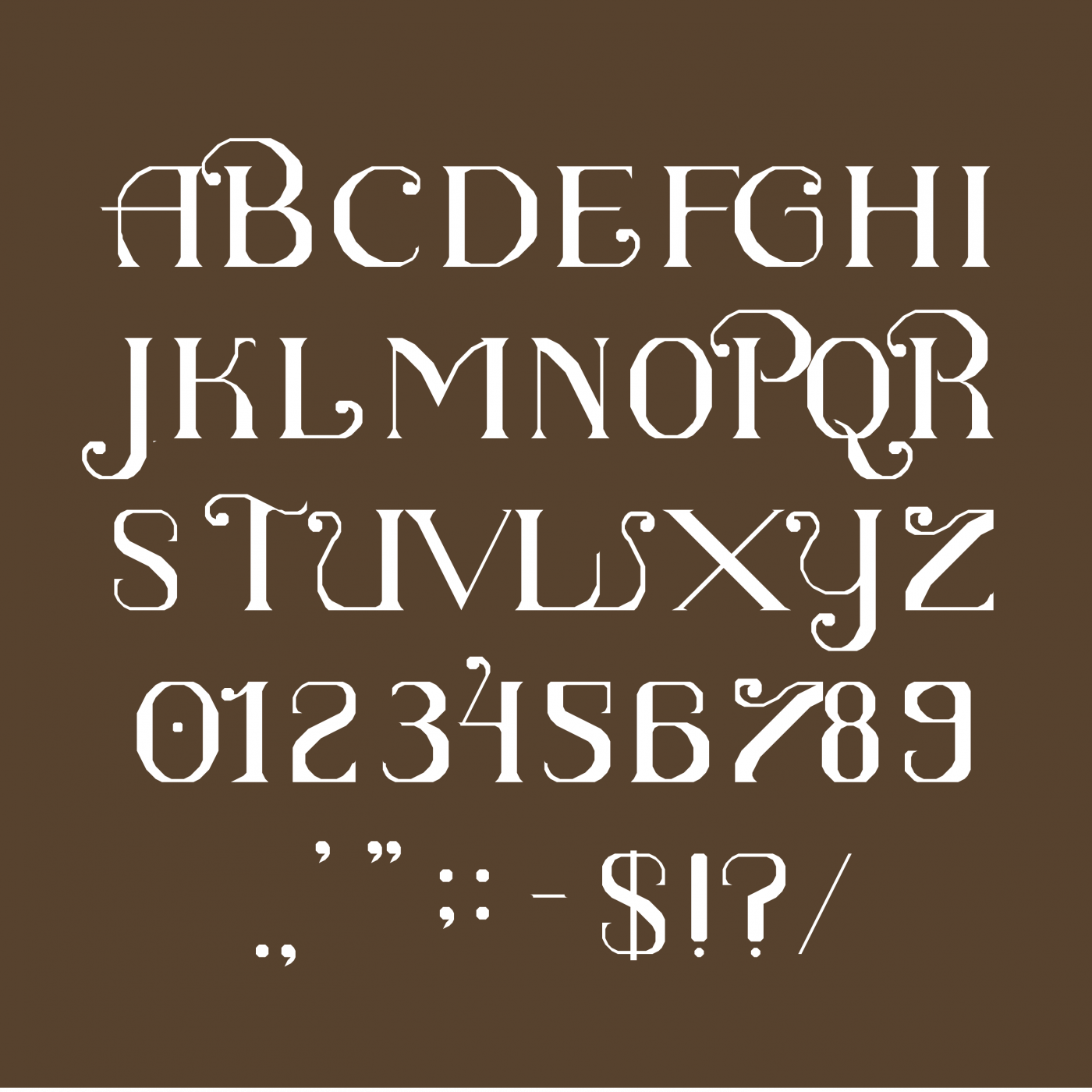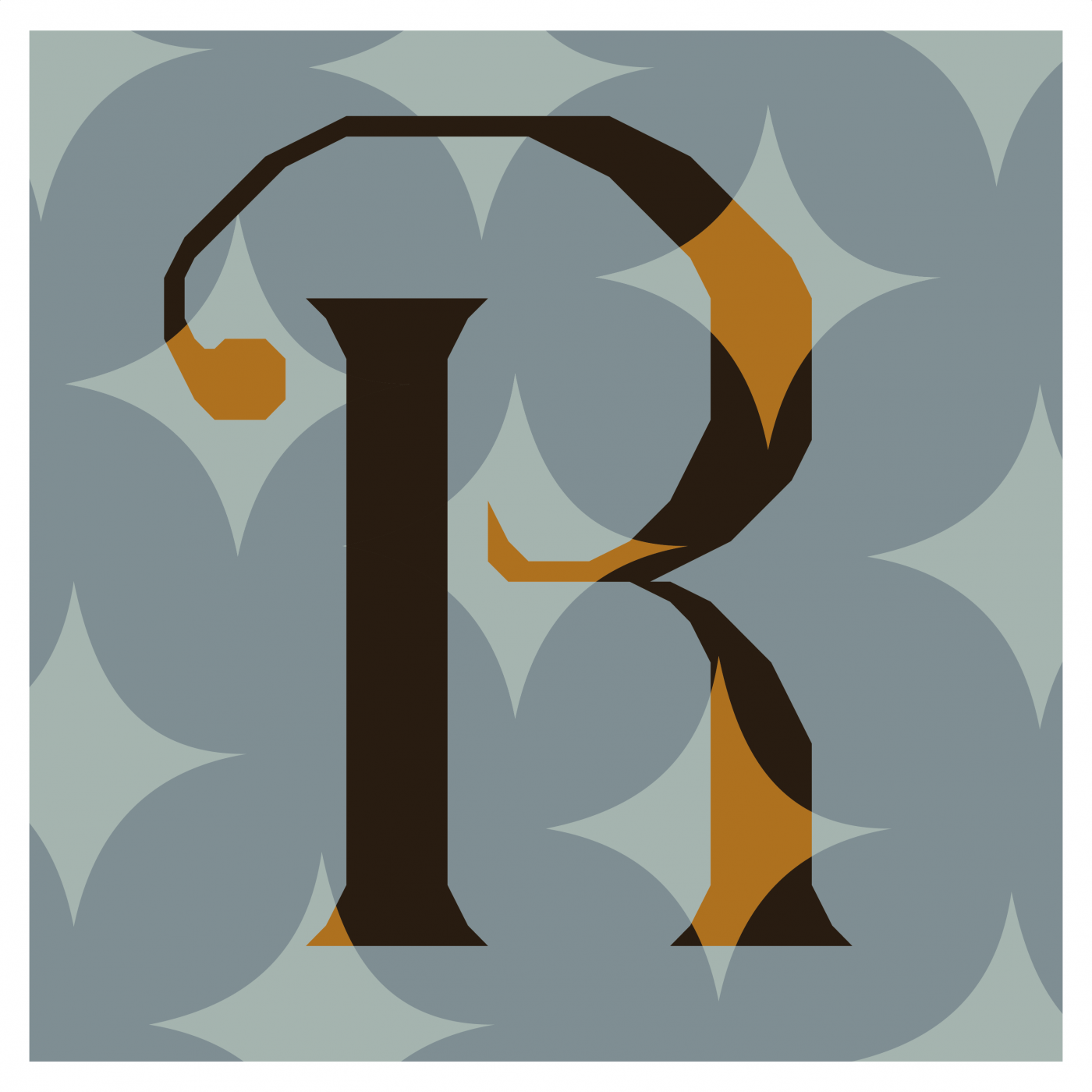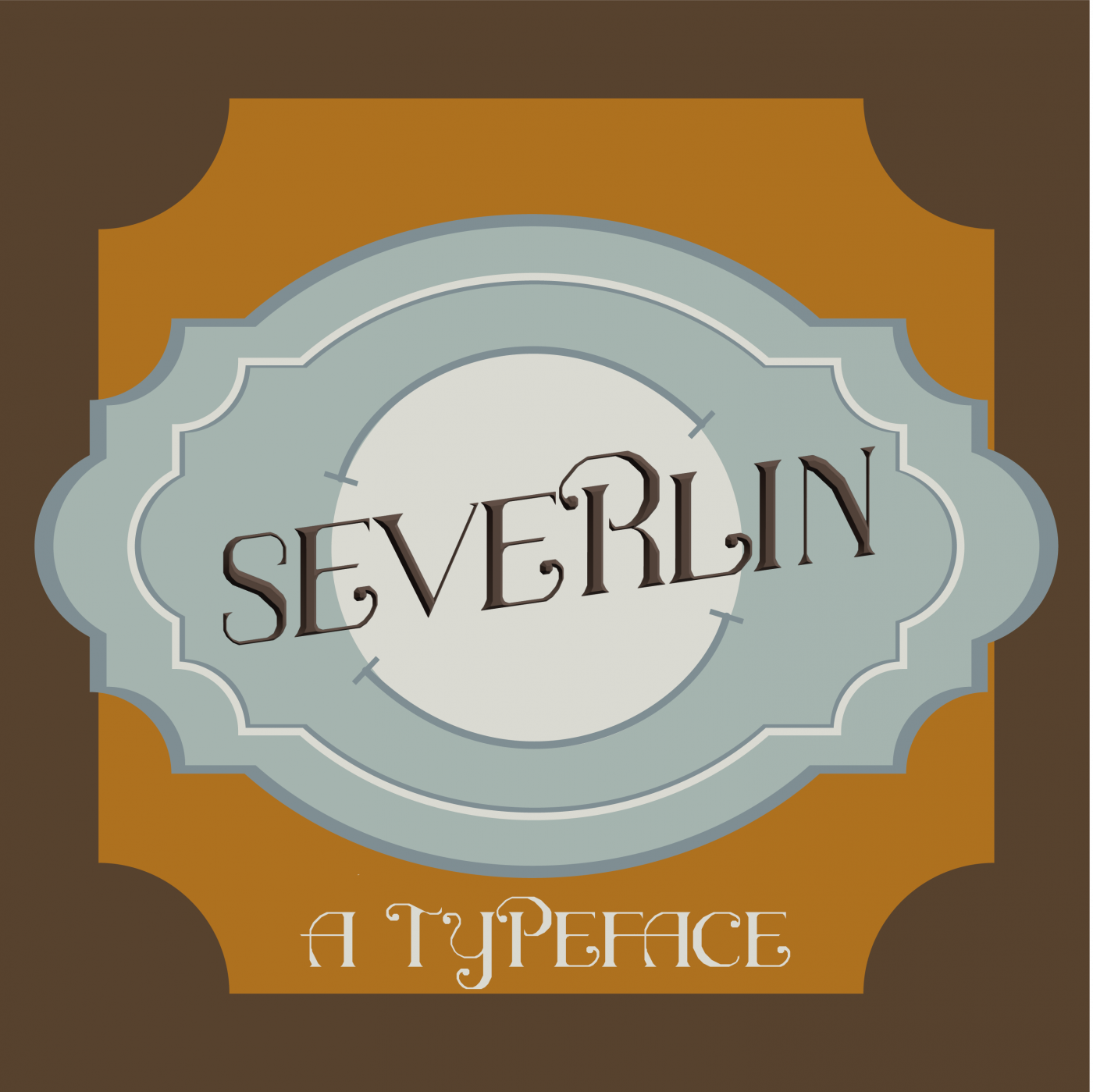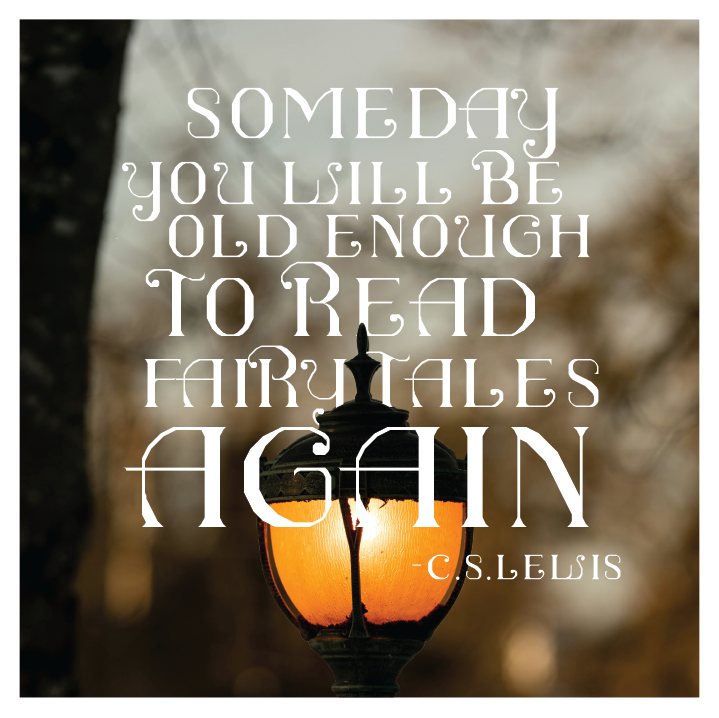
• This typeface marries Victorian ornament with modern precision. Its upright, disciplined skeleton recalls the structure of 19th‑century book titling, yet each letter is enlivened by curling terminals and carved interior cuts that feel almost quill‑drawn. High‑contrast strokes lend the forms a dramatic, typeset‑on‑parchment presence, while the whimsical hooks and flourishes interrupt the austerity with a storyteller’s charm. The result is a display serif that feels both scholarly and imaginative, and is perfect for titles that seek a touch of literary grandeur without sacrificing contemporary clarity.